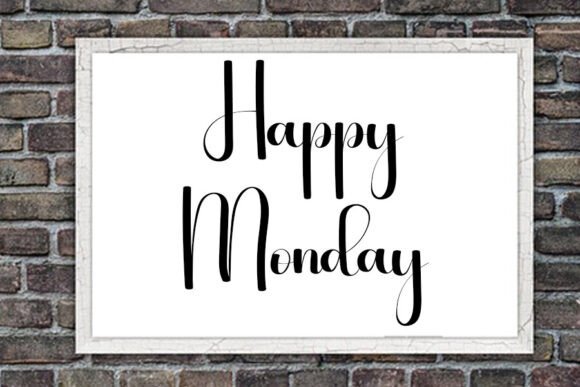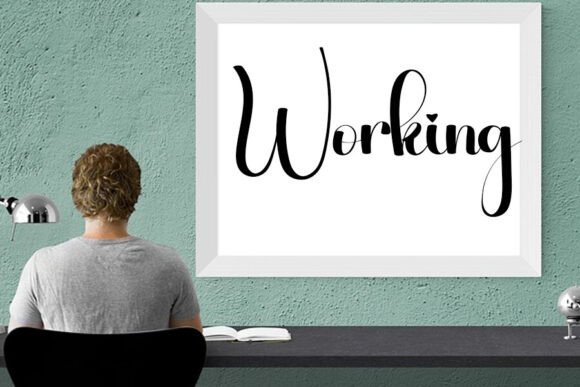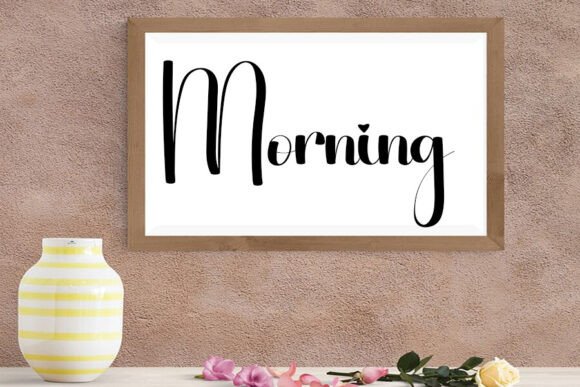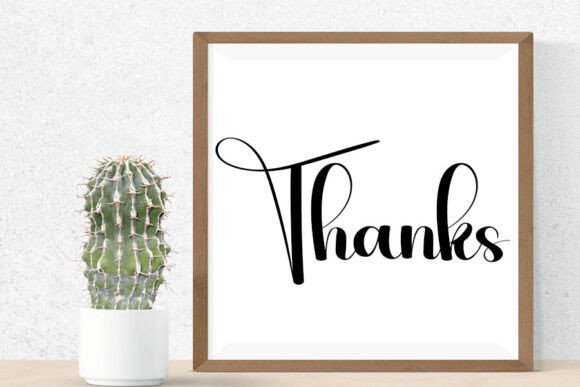
Unlock the Power of ‘Chatting Font’: Elevate Your Designs with Simplicity and Charm
Have you ever stumbled upon a design that makes you stop and think, ‘Wow, how did they come up with that?’ For many creatives, that moment of inspiration is what drives them to push the boundaries of their art. It’s a feeling that can be elusive, but with the right tools, it’s within reach. Introducing the ‘Chatting Font’, a vibrant and exquisite typeface designed to breathe life into your creative endeavors.
The ‘Chatting Font’ is more than just a font – it’s a catalyst for innovation. Its unique blend of simplicity and charm makes it the perfect addition to any design project. Whether you’re creating a lively YouTube banner or a delicate wedding invitation, this font is sure to elevate your work and take it to the next level. By choosing the ‘Chatting Font’, you’re not just selecting a typeface – you’re unlocking a world of creative possibilities.
Chatting Font Key Features
- Unique Characteristics: Chatting Font features a unique, playful, and cursive design that is perfect for creating a friendly and approachable tone in digital communication, making it ideal for chatbots, social media, and messaging apps.
- Font Style Variations: Chatting Font comes in a variety of styles, including Regular, Italic, Bold, and Bold Italic, allowing designers to customize the look and feel of their digital communication.
Chatting Font Review
Overall, I think Chatting Font has some interesting qualities, but it’s not without its limitations. ✨ One thing I appreciate is the friendly, approachable vibe the font gives off. It’s perfect for casual designs, social media graphics, or even chatbot interfaces. The font’s rounded edges and cursive flair make it feel welcoming and easy to read.
- ✨ Friendly, approachable vibe
- ✨ Rounded edges and cursive flair make it easy to read
- ✨ Perfect for casual designs, social media graphics, or chatbot interfaces
However, I do have some concerns ⚠️. Firstly, the font can feel a bit too playful or childish at times, which might not be suitable for all projects. Additionally, the font’s consistency can be a bit wonky in certain font sizes or styles. This can lead to a disjointed or amateurish look.
- ⚠️ Can feel too playful or childish
- ⚠️ Consistency issues in certain font sizes or styles
Overall, I’d say Chatting Font is a decent choice for casual designs, but it might not be the best fit for more formal or professional projects. With a bit of tweaking and refinement, I think this font has potential, but for now, it’s a solid 3 out of 5 stars.
Chatting Font is ideal for:
- Social media posts and captions.
- Text messages and chat bubbles.
- Blog posts and articles with a casual tone.
- Marketing materials and advertisements with a playful tone.